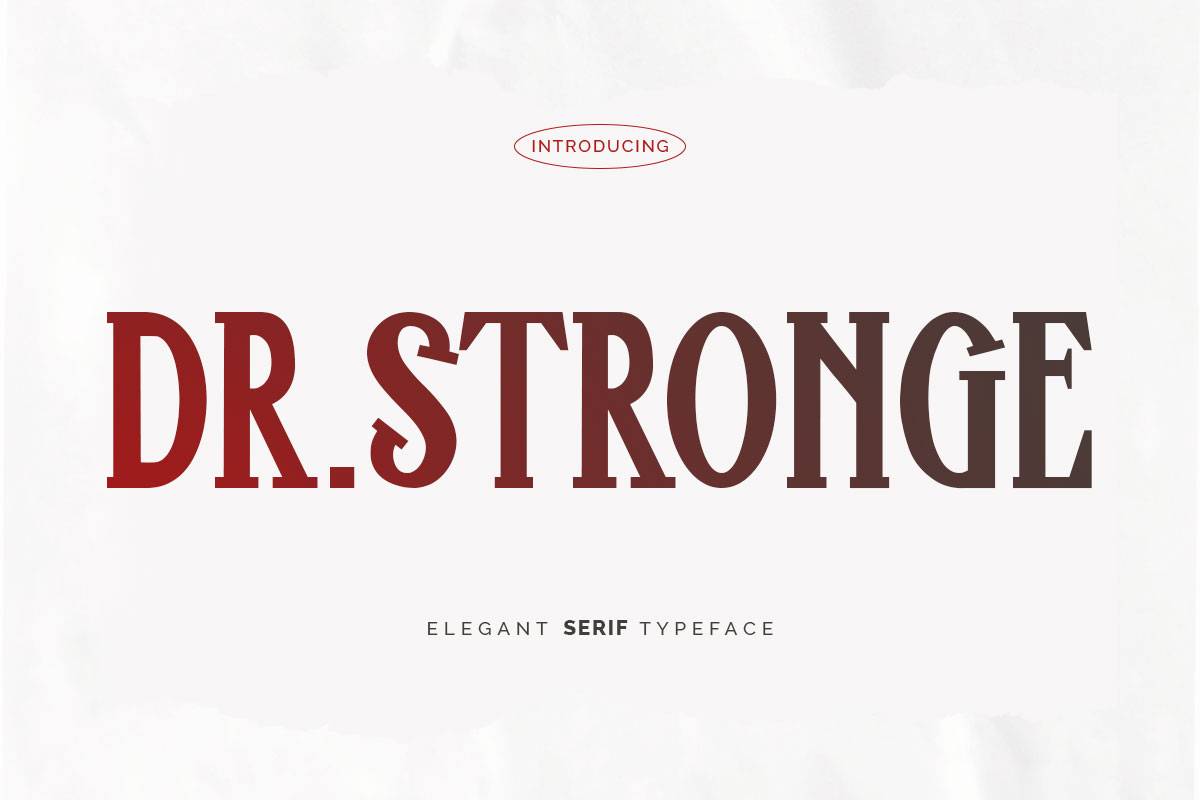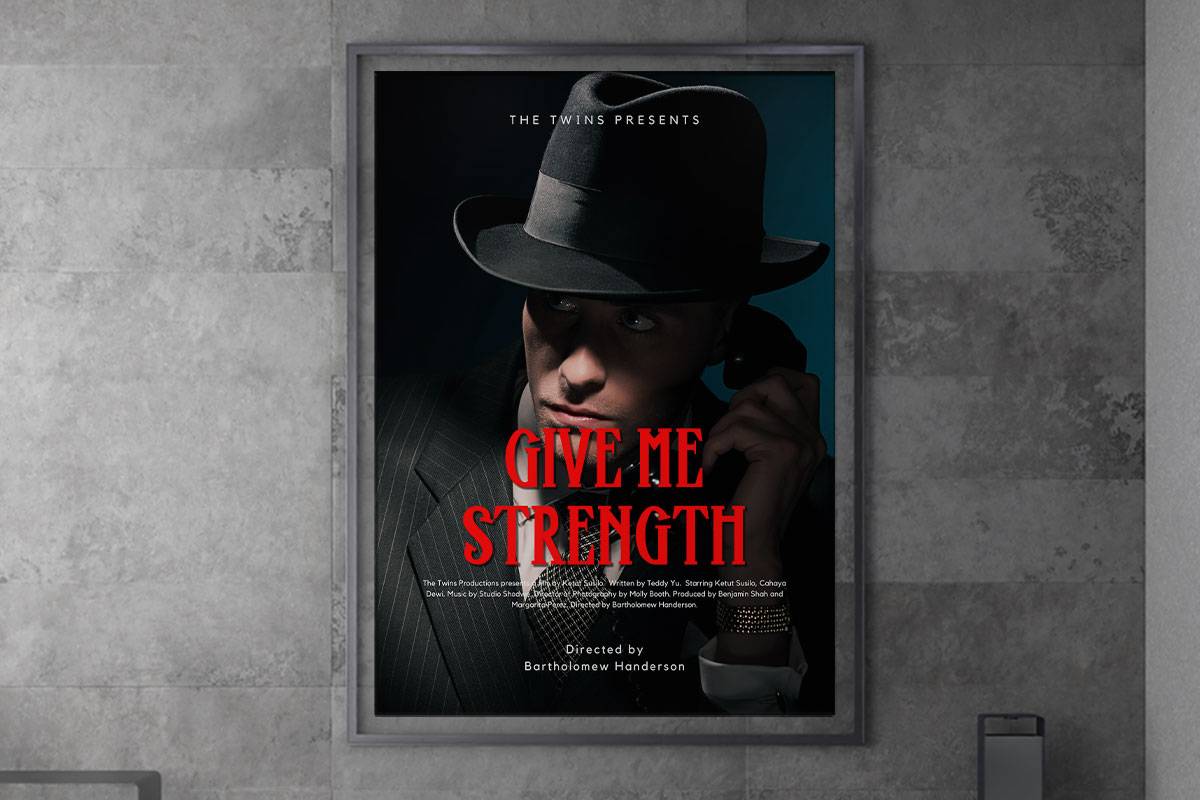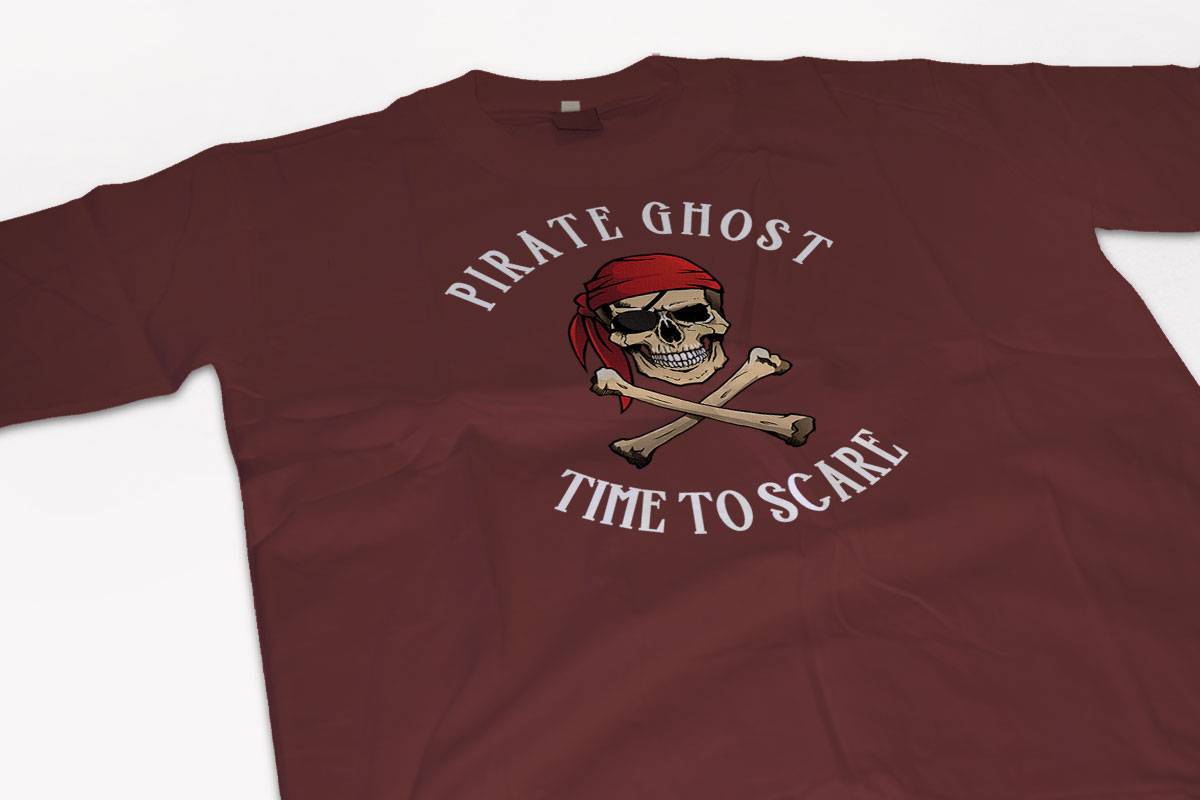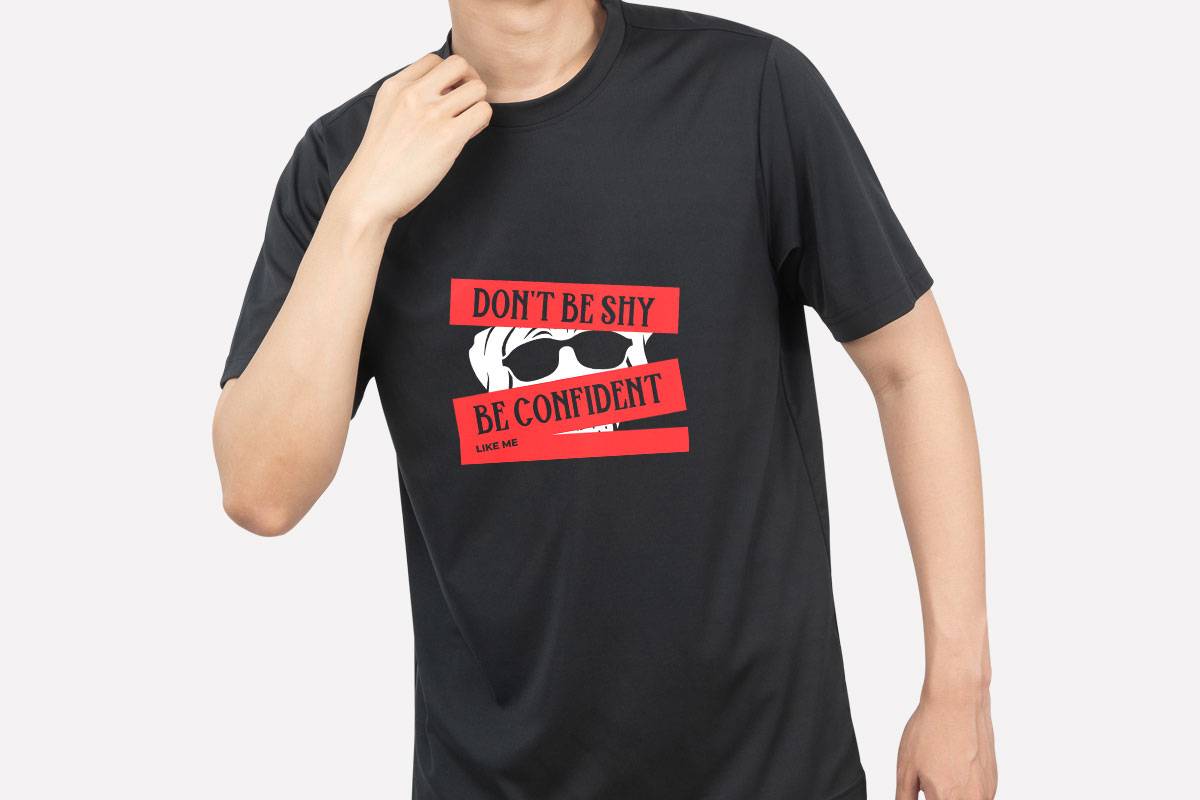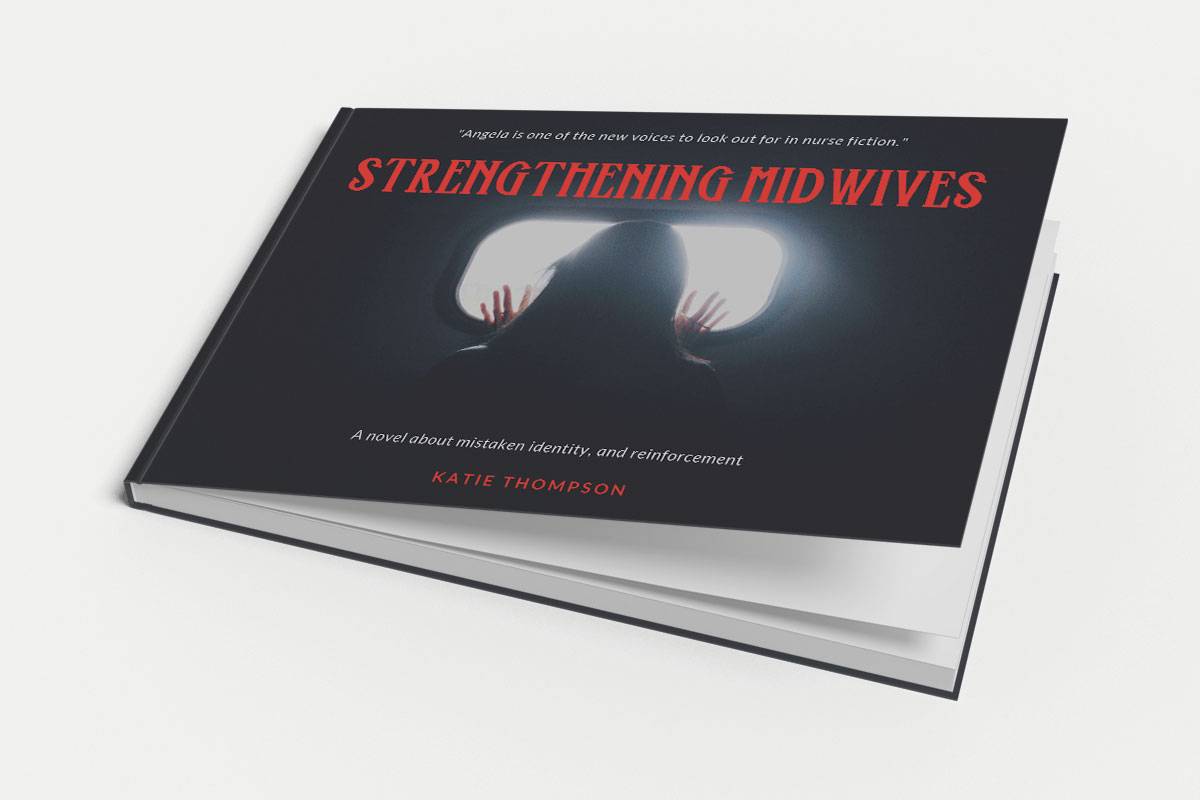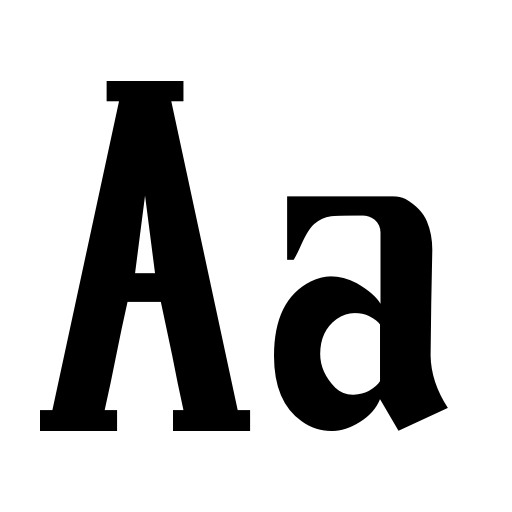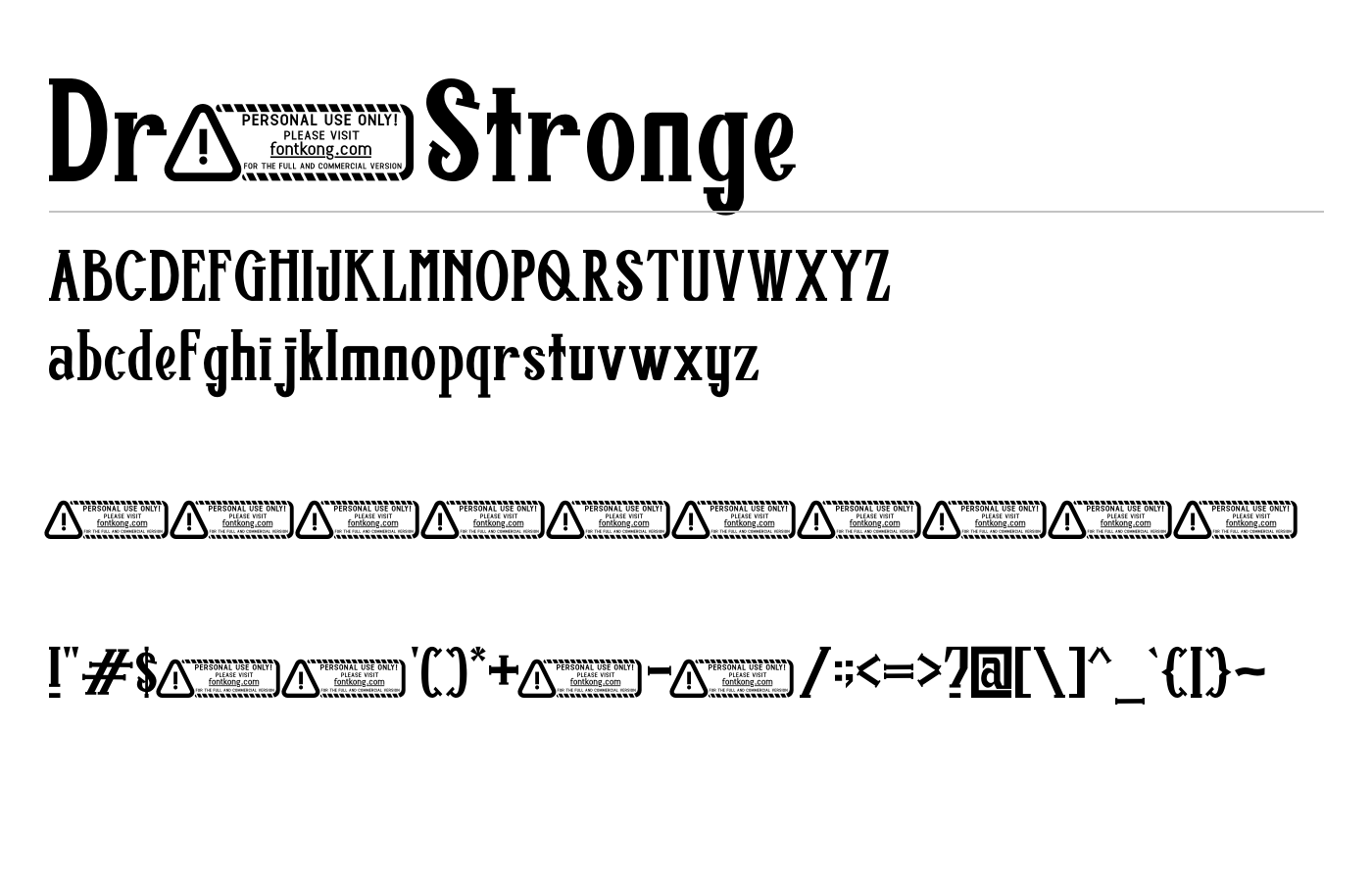
Dr. Stronge is a bold, condensed serif font with a vintage flair, characterized by sharp, high-contrast strokes and distinct, quirky letterforms that give it a playful yet strong personality. It works well for attention-grabbing headlines, logos, and branding that seek a unique and slightly dramatic style, adding a touch of retro charm and spirited elegance. This font is ideal for projects looking for a standout, memorable presence with a nod to classic typography.
Dr. Stronge Font
About Dr. Stronge Font
| Font family | Dr. Stronge Font |